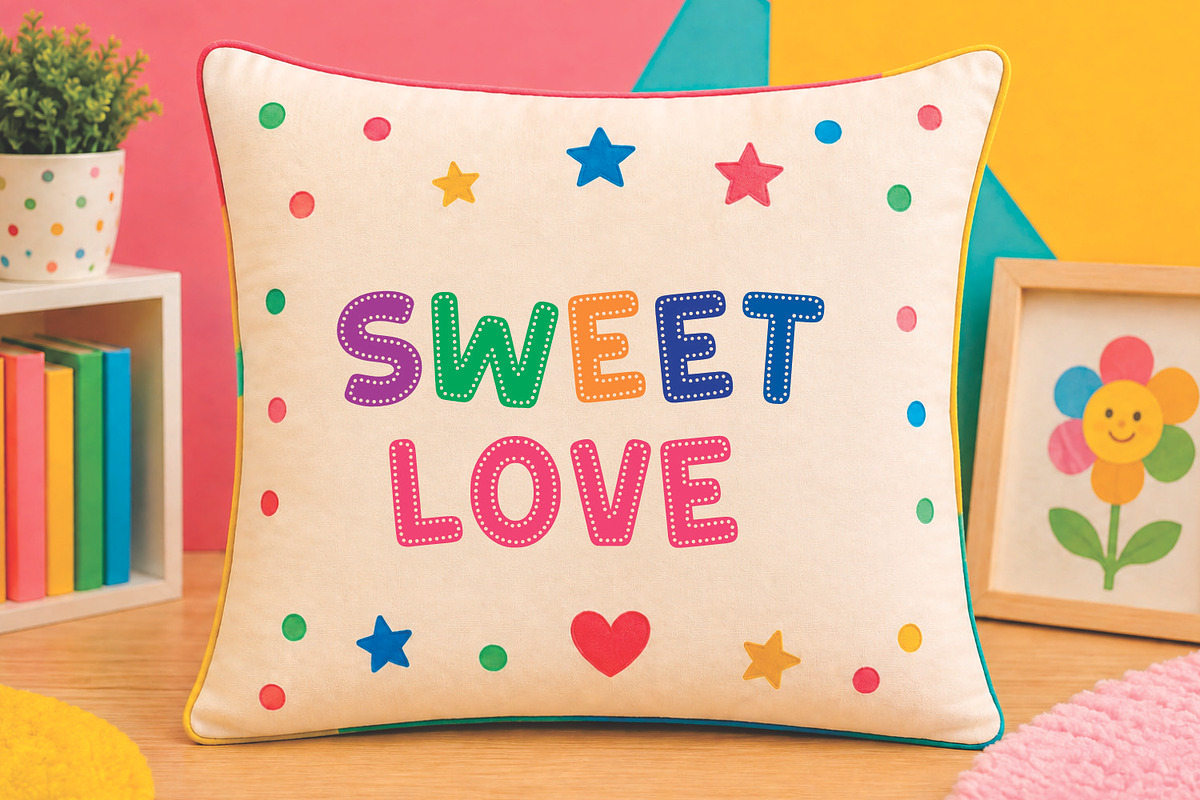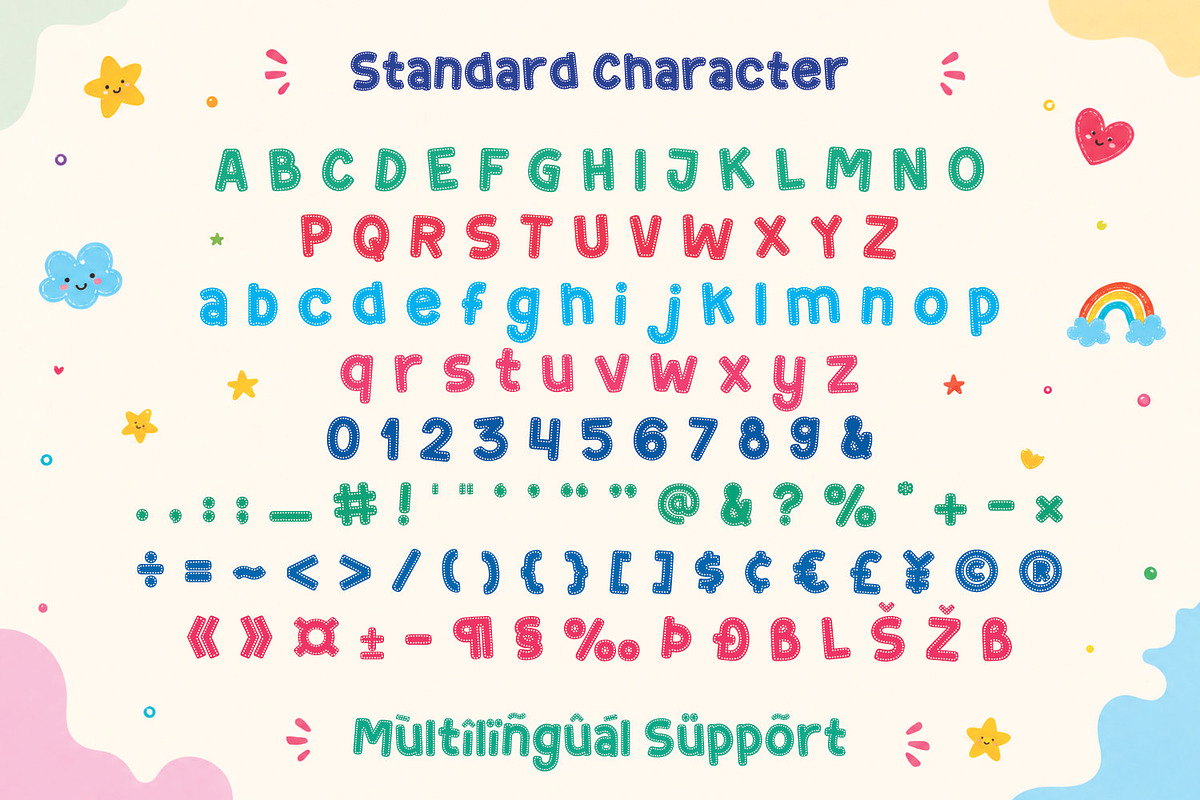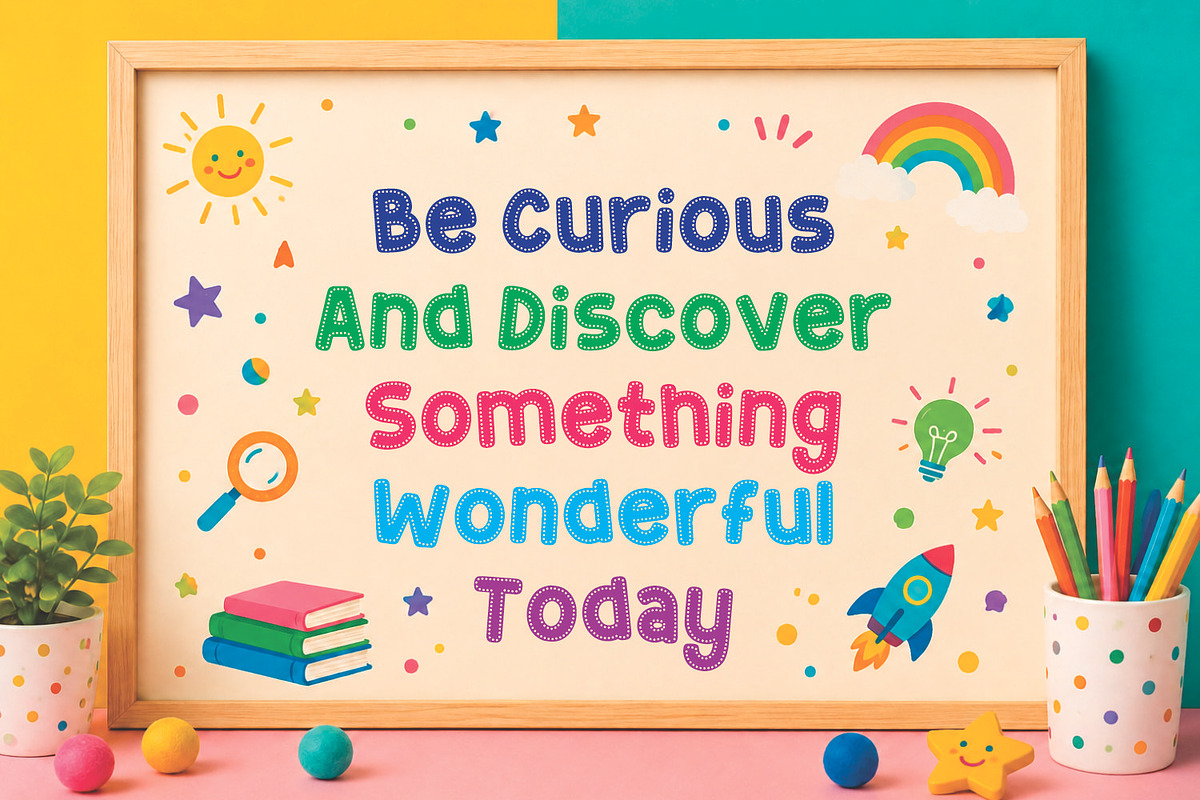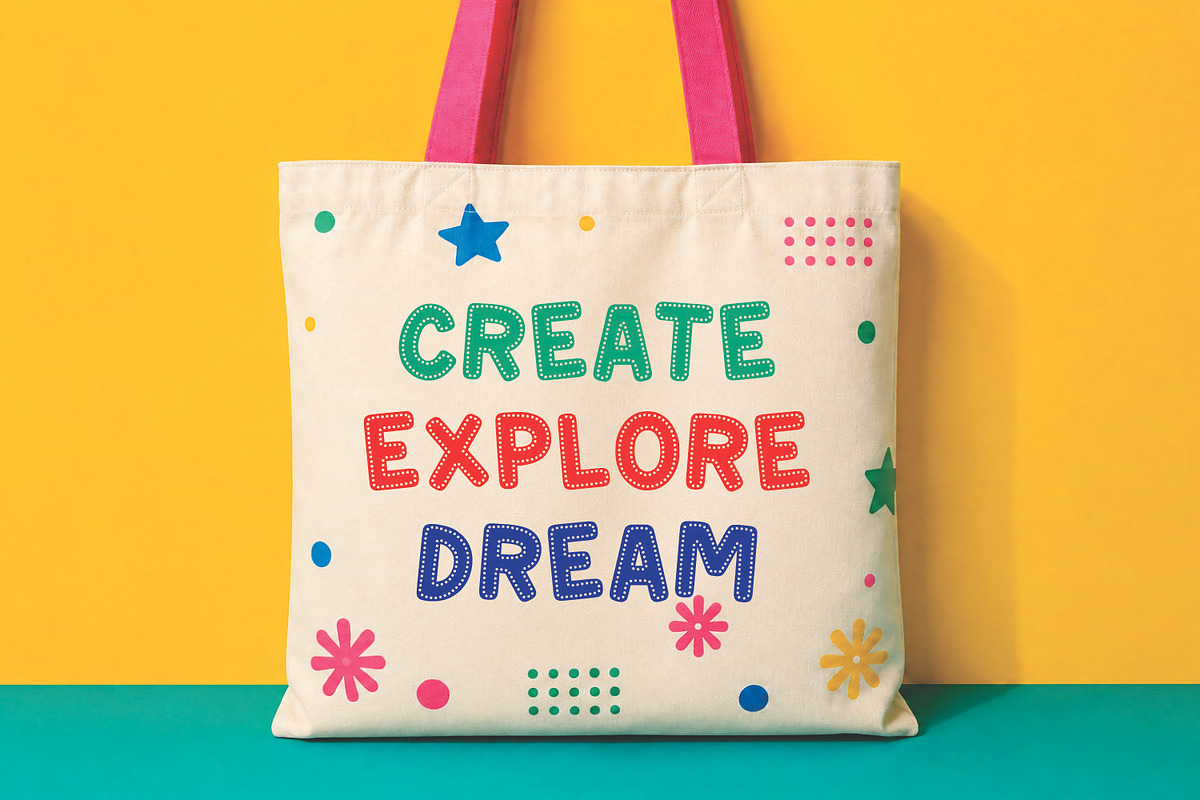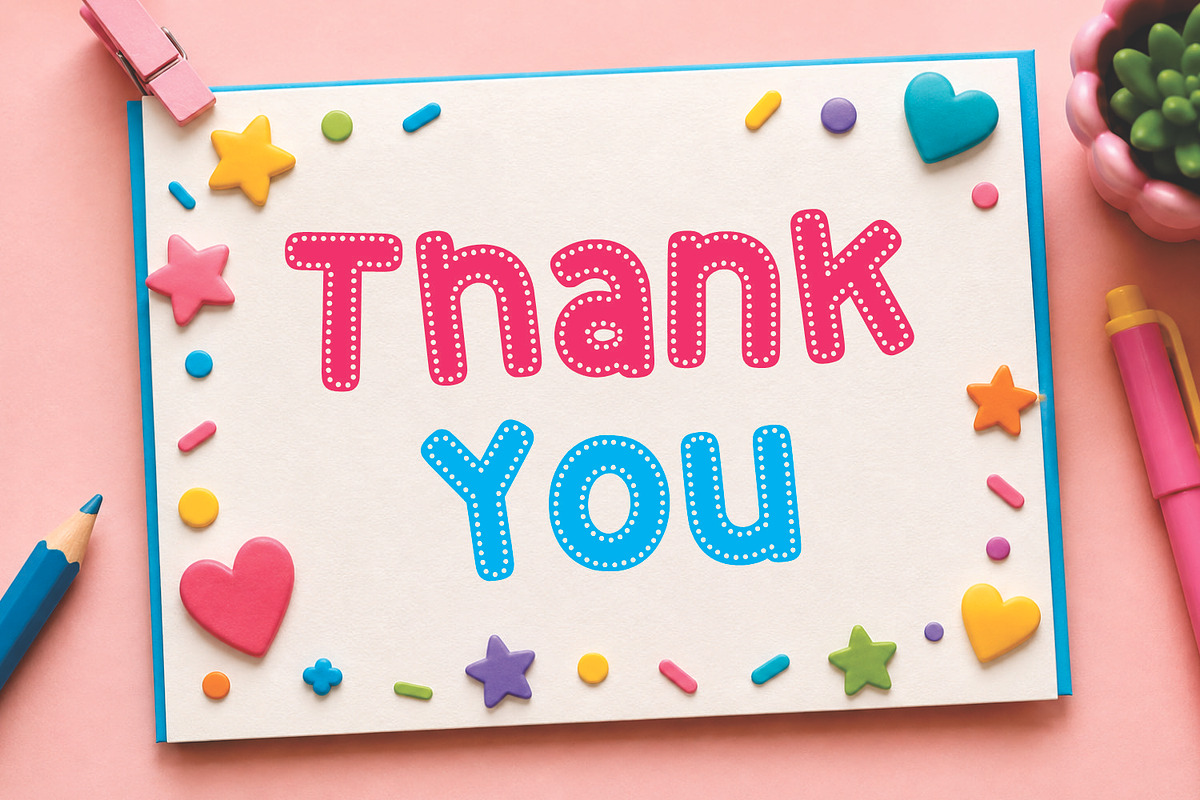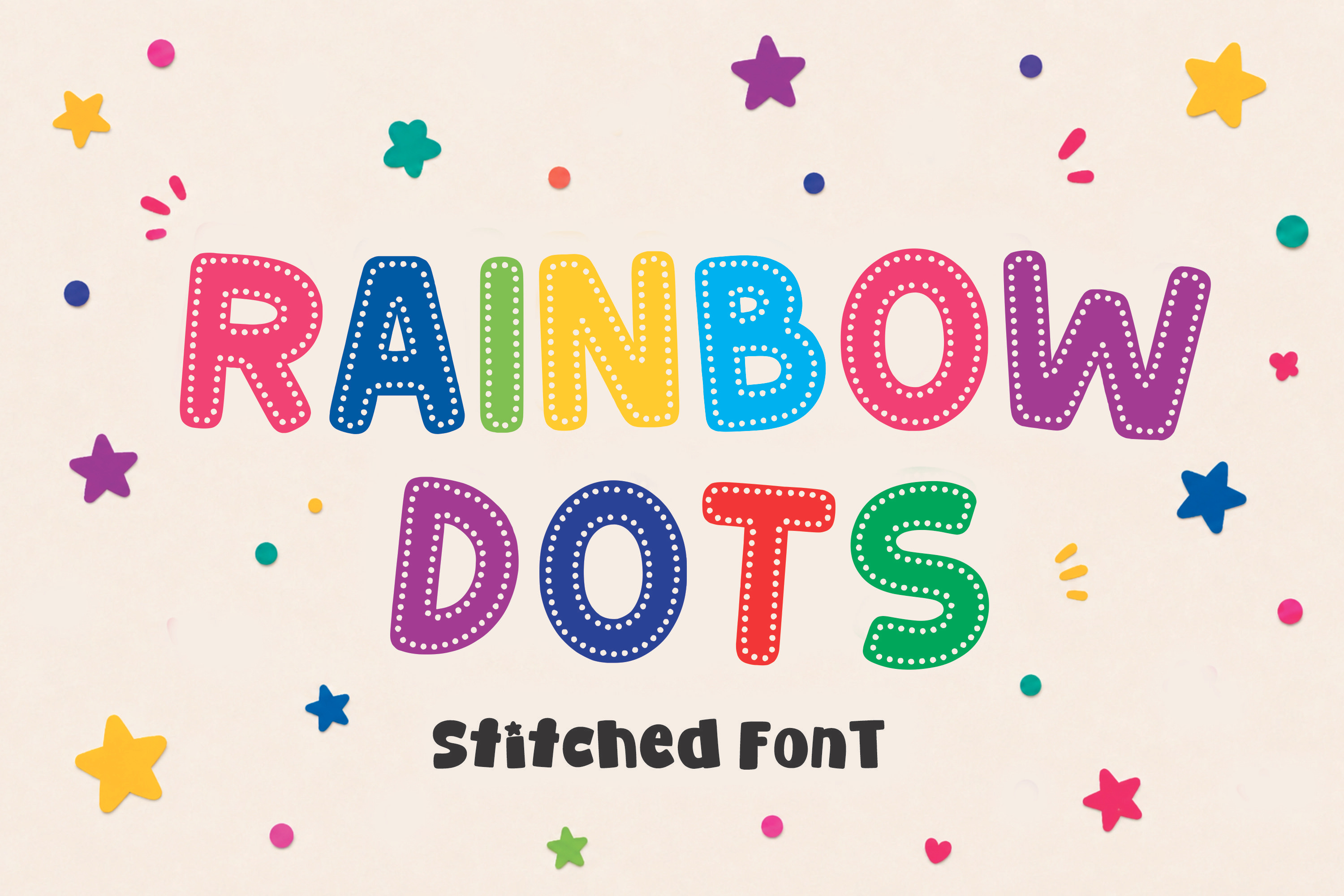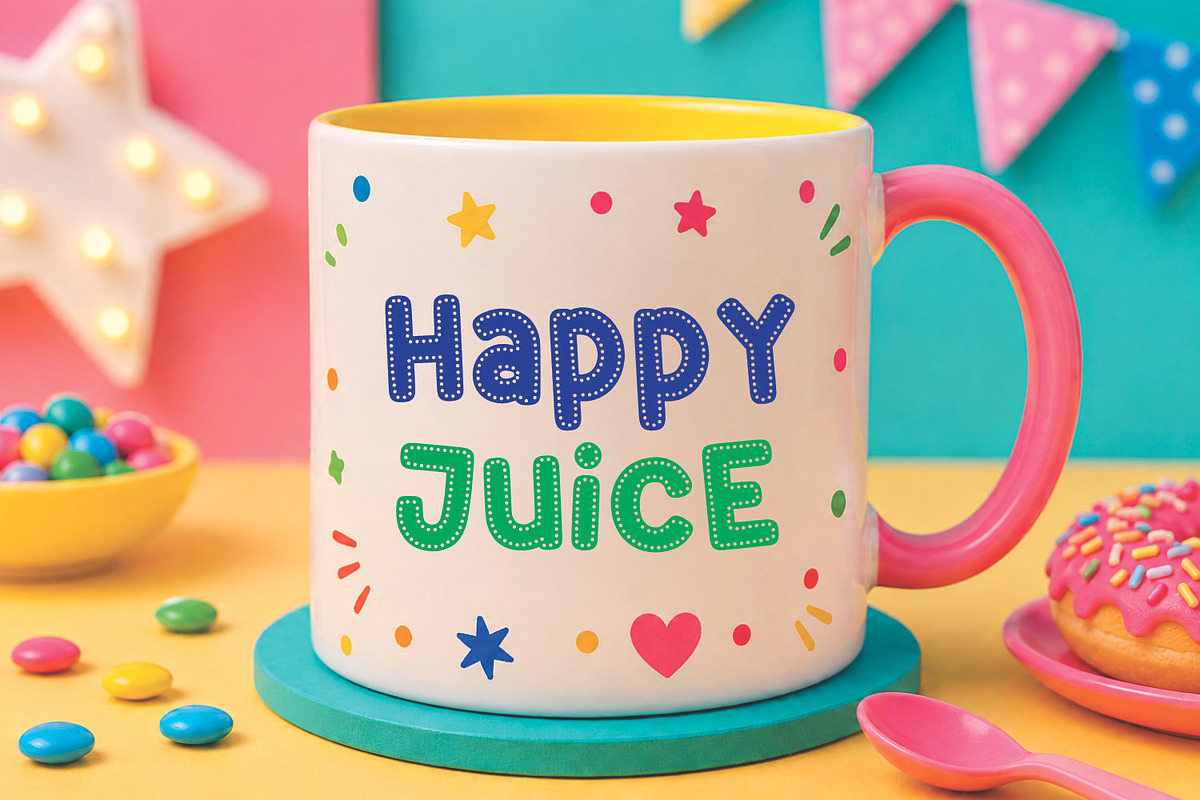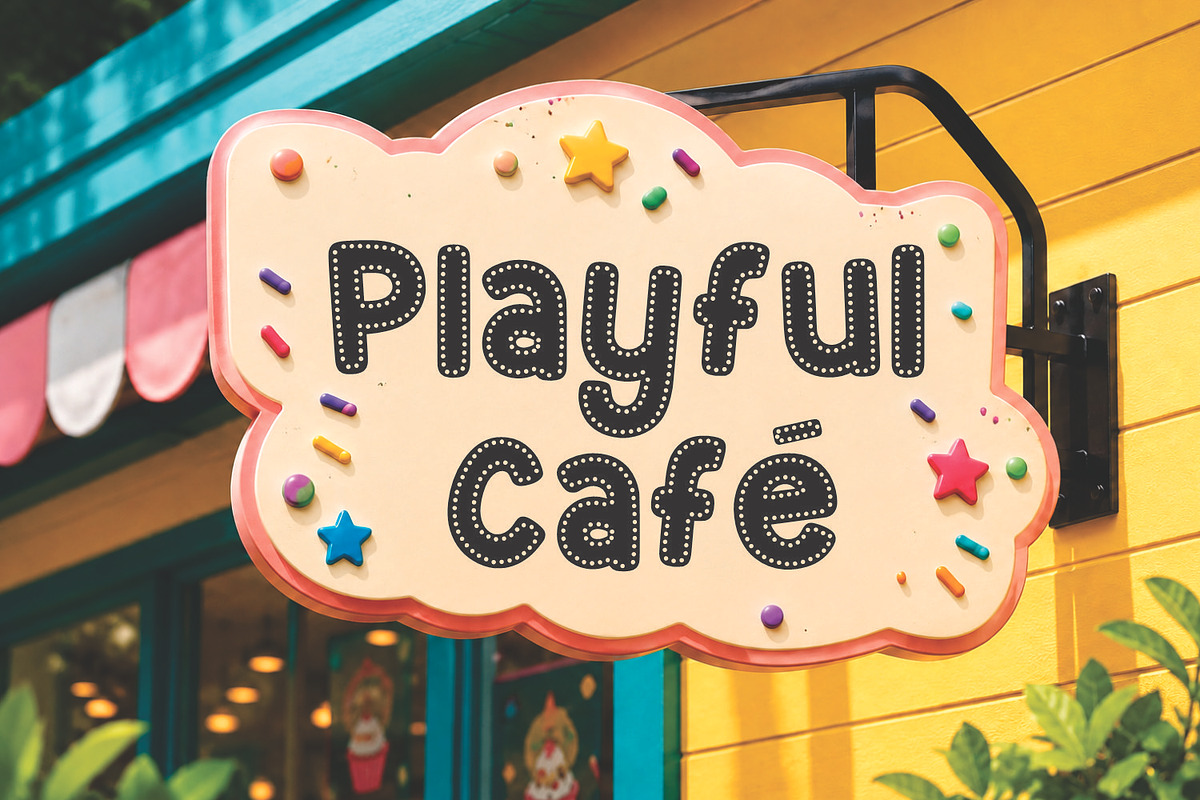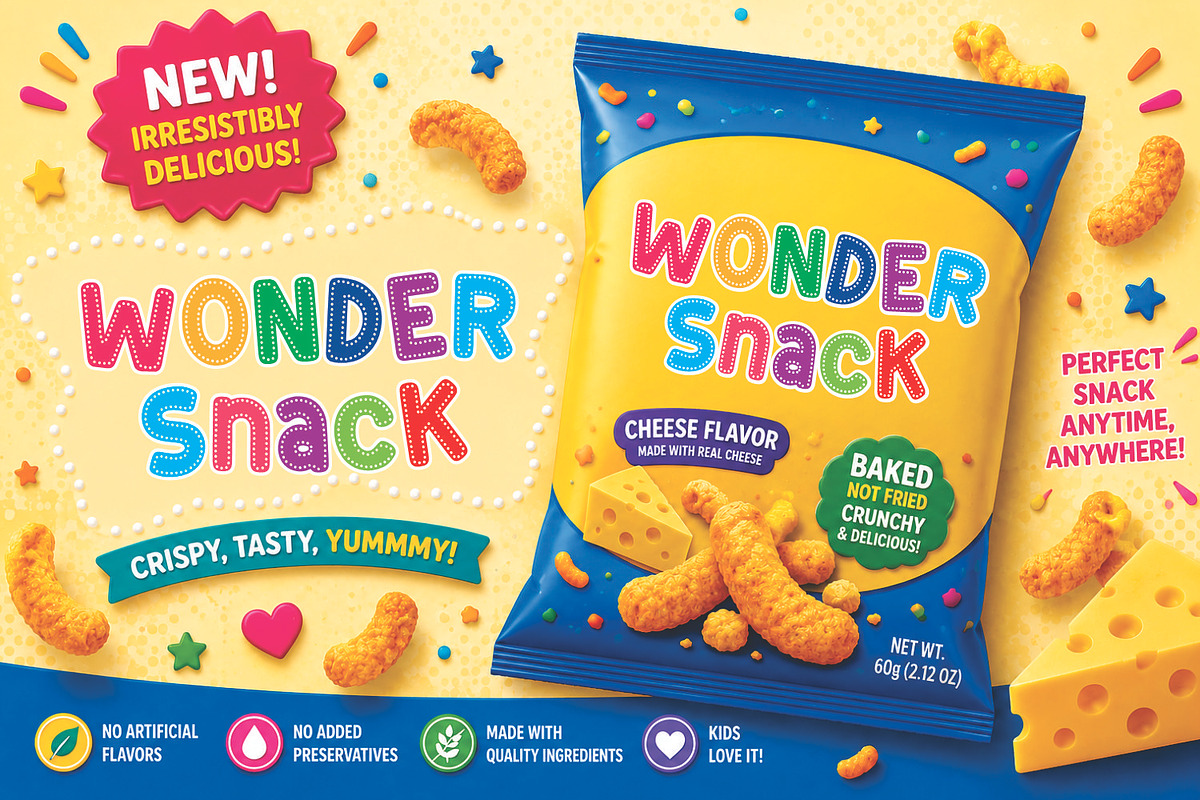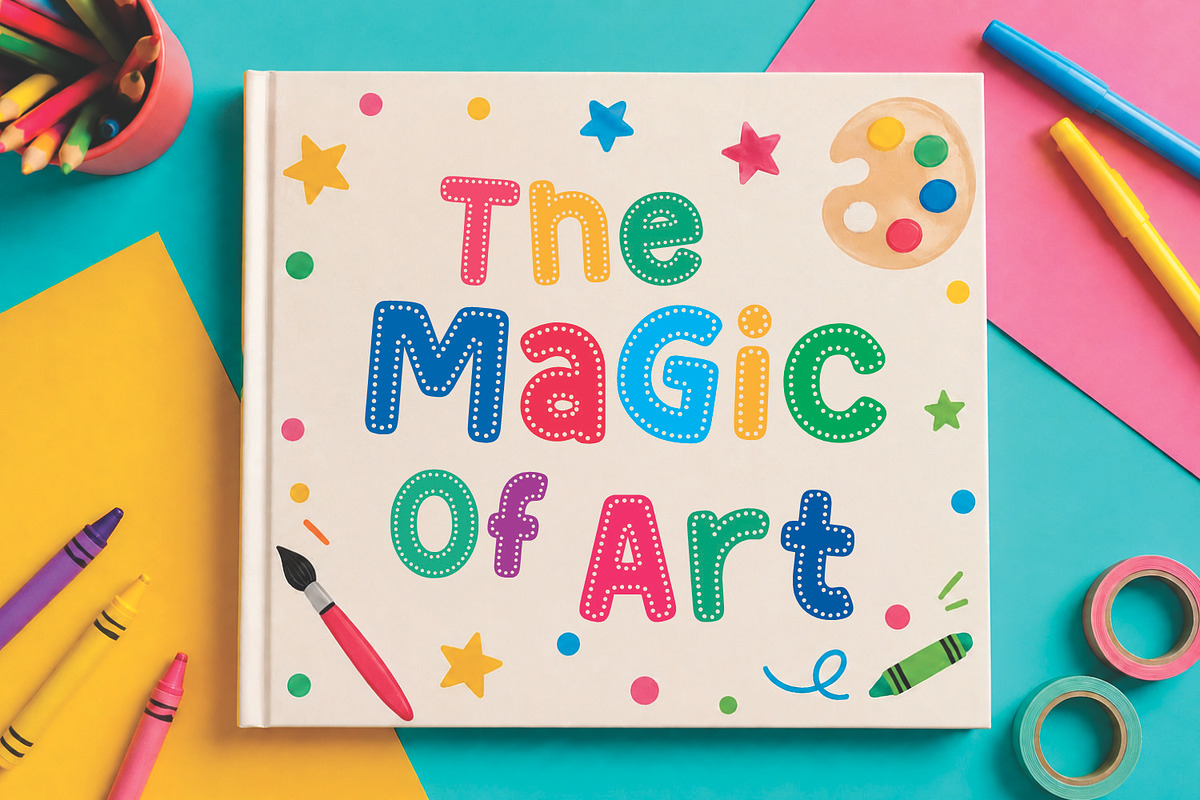
Rainbow Dots - Sticker Font
Rainbow Dots – Colorful Sticker Font | Cute & Playful Display Typeface
Rainbow Dots is a cute and colorful sticker font designed to bring a cheerful, playful, and unique personality to your creative projects. Featuring fun rounded letterforms and a charming dotted appearance, this display font creates a lively visual style that instantly stands out.
With its playful shapes and colorful-inspired character, Rainbow Dots is designed to feel friendly, youthful, and expressive. The distinctive dotted details give each letter a fun sticker-like appearance, making this cute font perfect for eye-catching titles, labels, logos, packaging, and decorative typography.
Inspired by rainbows, colorful dots, stickers, candy, playful illustrations, and cheerful designs, Rainbow Dots brings a bright and happy atmosphere to every project. Its unique visual personality works especially well for designs that need a fun, modern, and approachable look.
Rainbow Dots performs beautifully across a variety of creative projects, including children's designs, stationery, packaging, posters, invitations, stickers, social media graphics, and merchandise. Its bold display character makes it easy to create typography that remains noticeable while adding a playful touch to your overall composition.
With its colorful and distinctive sticker-inspired style, Rainbow Dots is an excellent choice for designers looking for something fun and different. Whether you're creating a cute brand identity, colorful packaging, children's artwork, or decorative lettering, this sticker font adds personality and cheerful energy to every word.
Cute Sticker Font A playful sticker-inspired typeface with charming and expressive letterforms.
Colorful & Cheerful Style Inspired by rainbows, colorful dots, candy, and joyful visual aesthetics.
Unique Dotted Details Fun dot-inspired elements give the typography a distinctive and memorable appearance.
Playful Display Typeface Designed for headlines, titles, logos, labels, and other eye-catching typography.
Fun & Versatile Font Perfect for children's designs, packaging, stickers, crafts, merchandise, and digital artwork.
Multilingual Support Extended glyphs for a wider range of international design projects.
Rainbow Dots sticker font works beautifully for:
• Sticker Designs • Cute Branding & Logos • Kids & Children's Designs • Children's Books & Illustrations • Candy & Sweet Branding • Food & Beverage Packaging • Birthday Invitations • Party Decorations • Labels & Product Packaging • T-Shirt & Merchandise Design • Social Media Graphics • Posters & Advertising • Stationery & Printables • Cricut & DIY Crafts • Colorful & Playful Projects
Why Choose Rainbow Dots?
Rainbow Dots is a fun and distinctive sticker font created for designers who want typography with a cheerful visual personality. Its rounded letterforms, dotted details, and playful character make it an excellent choice for colorful and expressive designs.
Whether you're creating stickers, children's artwork, cute logos, packaging, birthday invitations, merchandise, Cricut projects, or social media graphics, Rainbow Dots adds a bright and memorable touch to your typography.